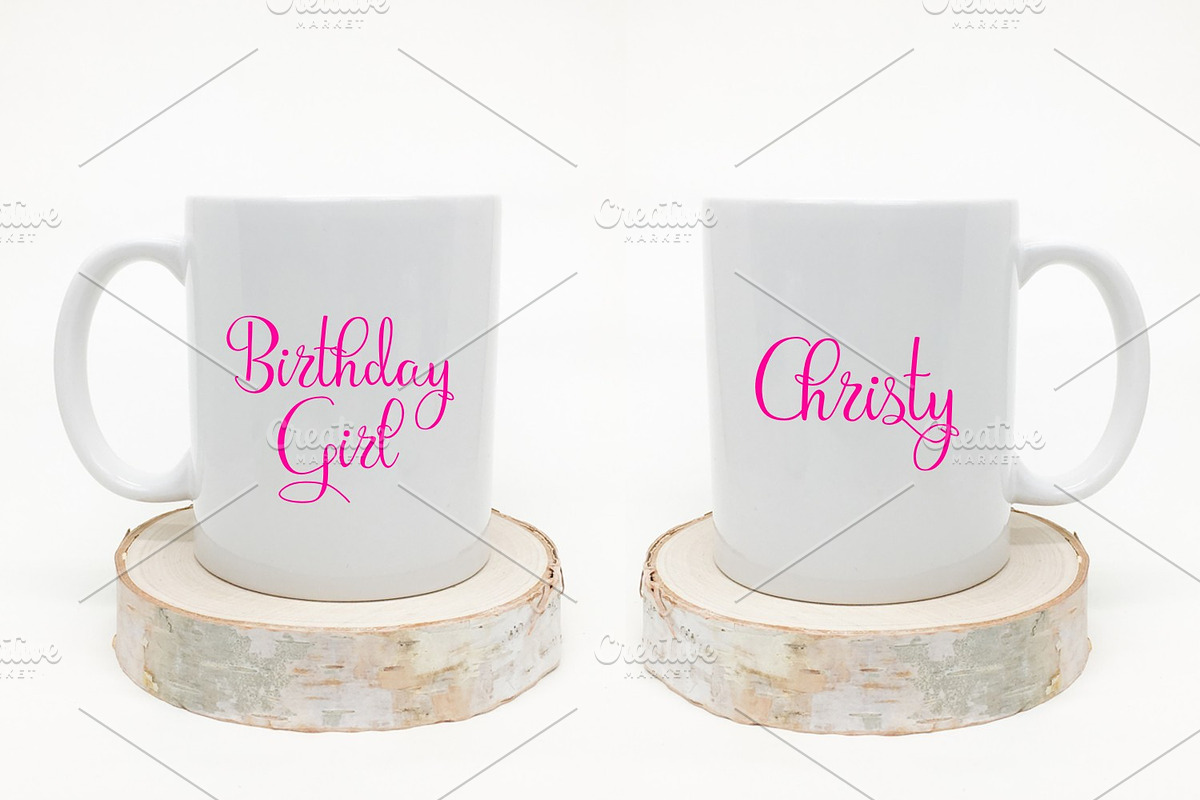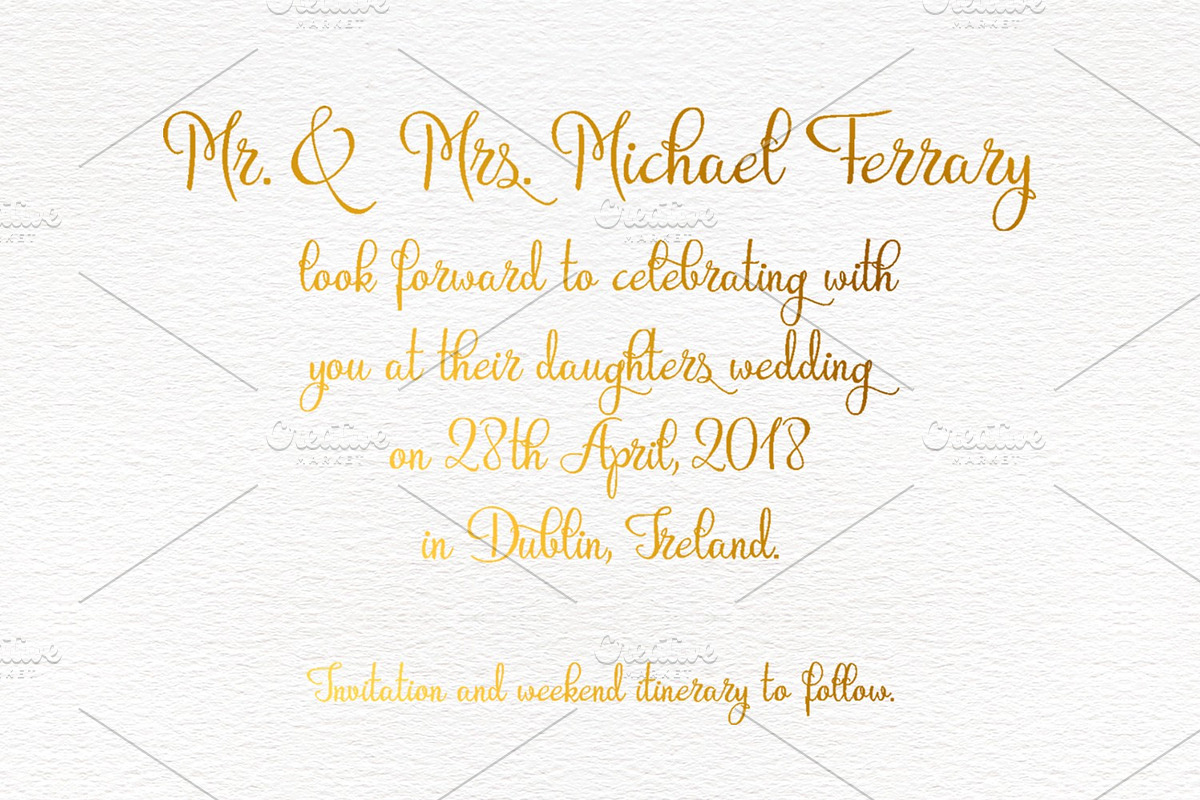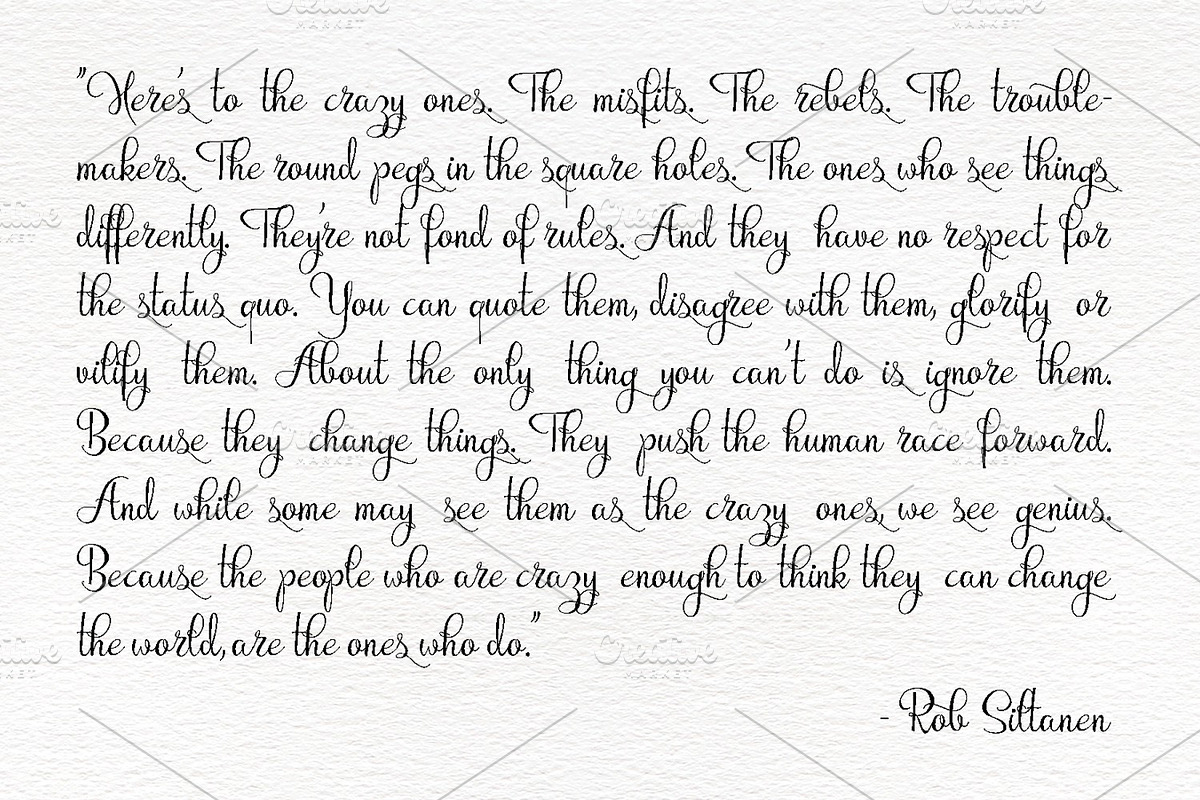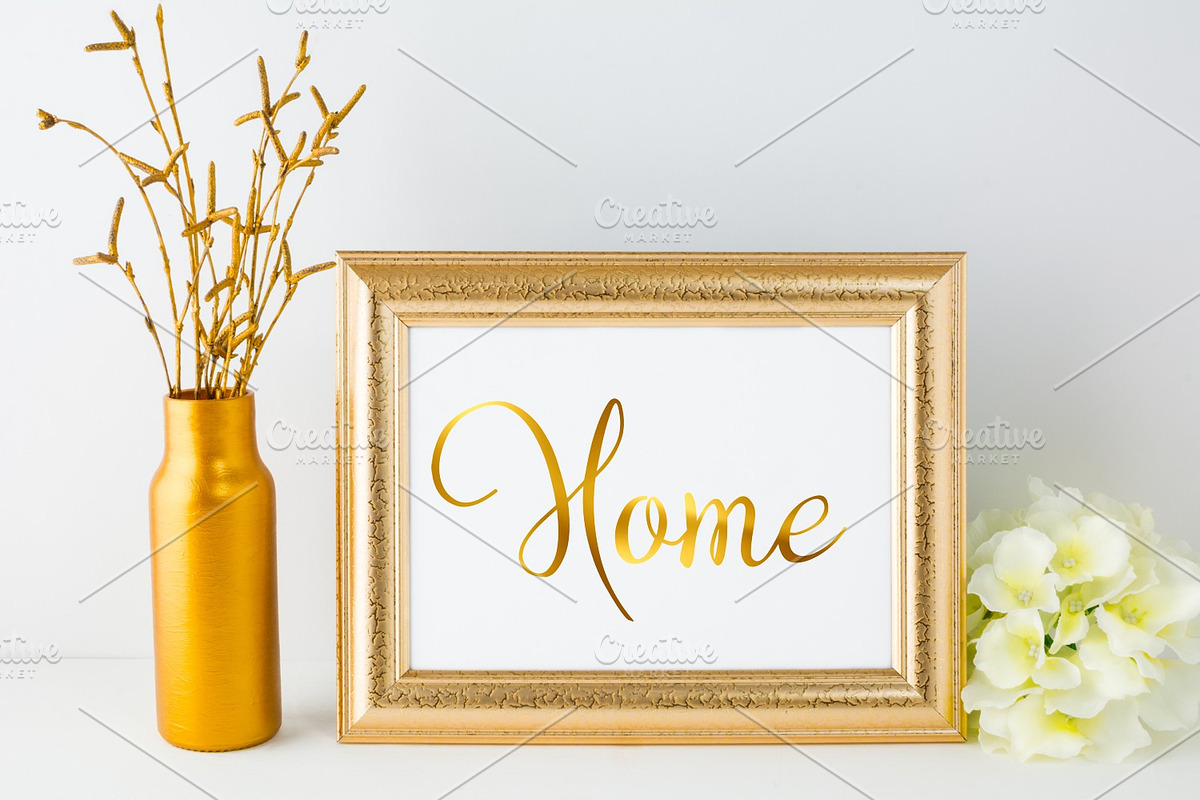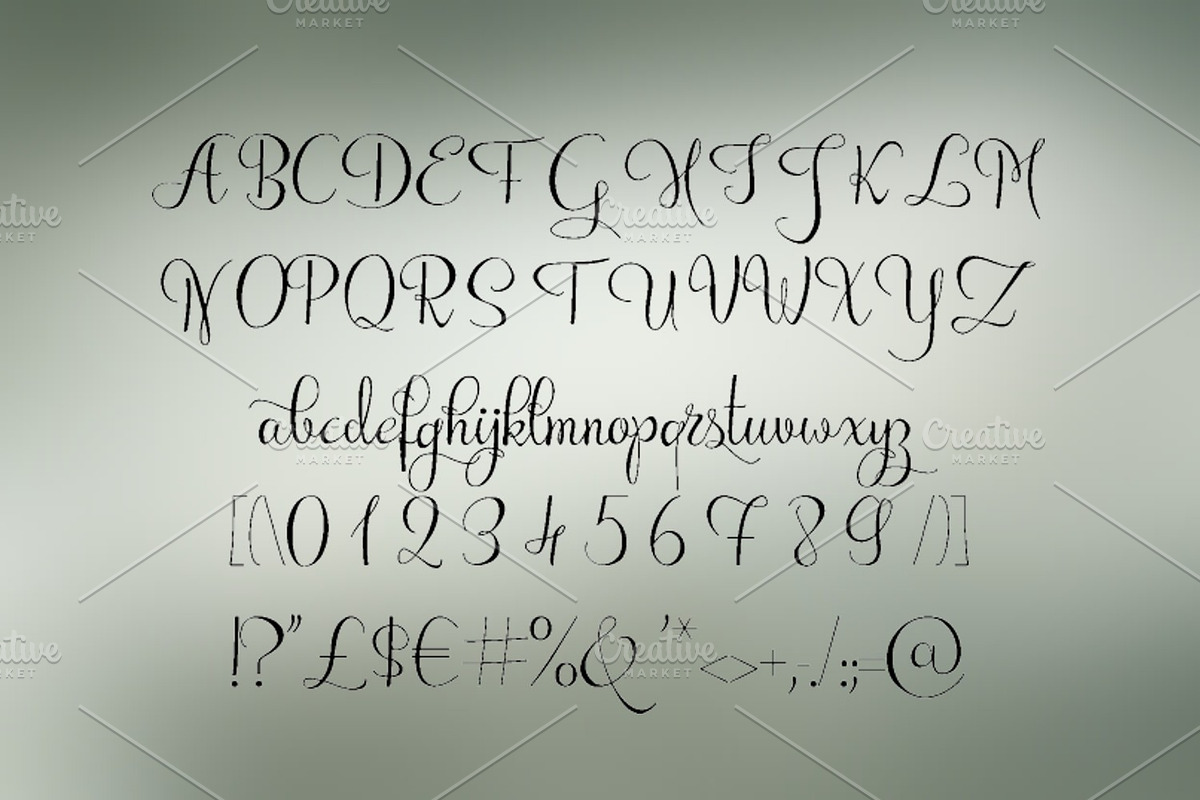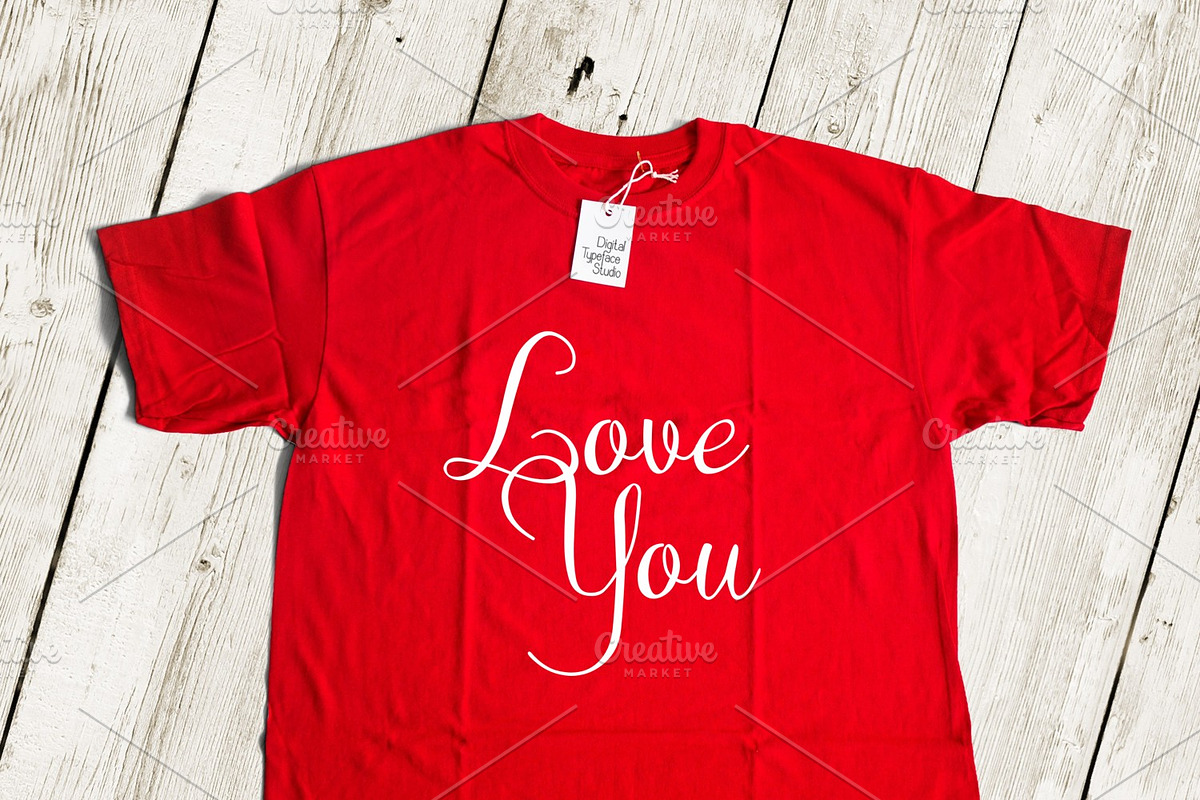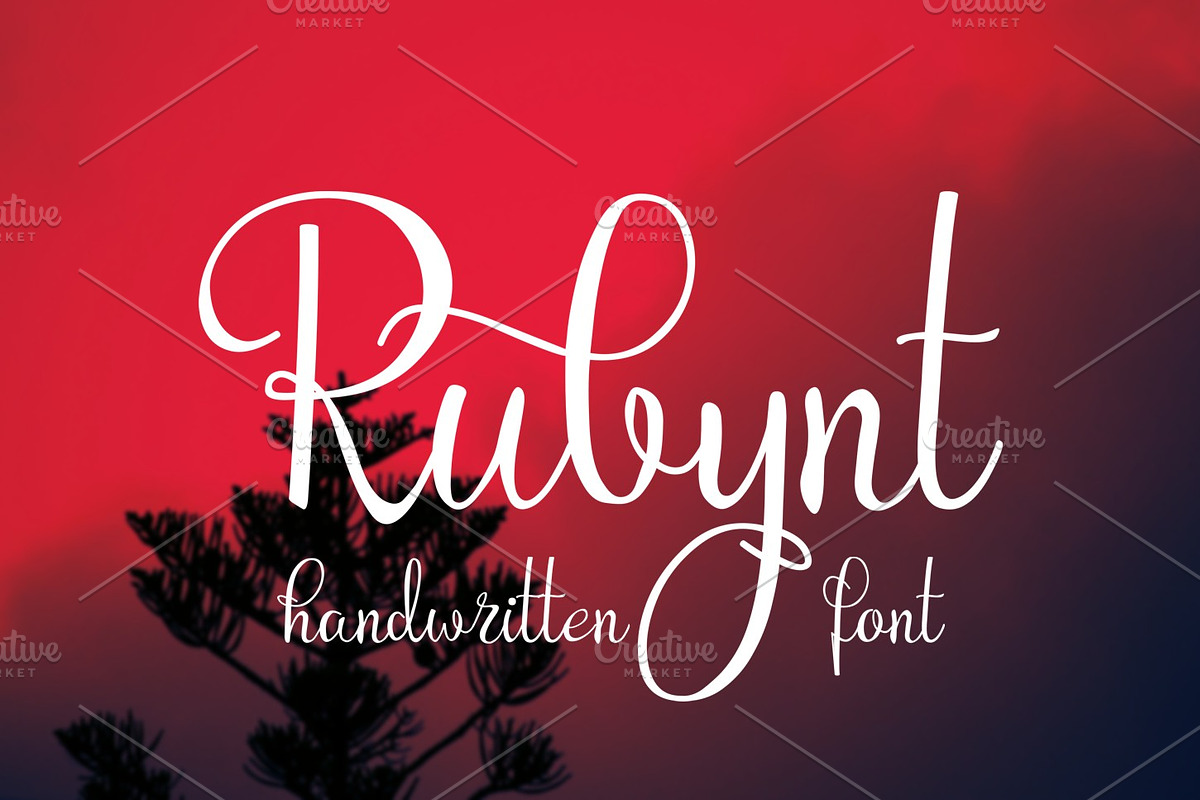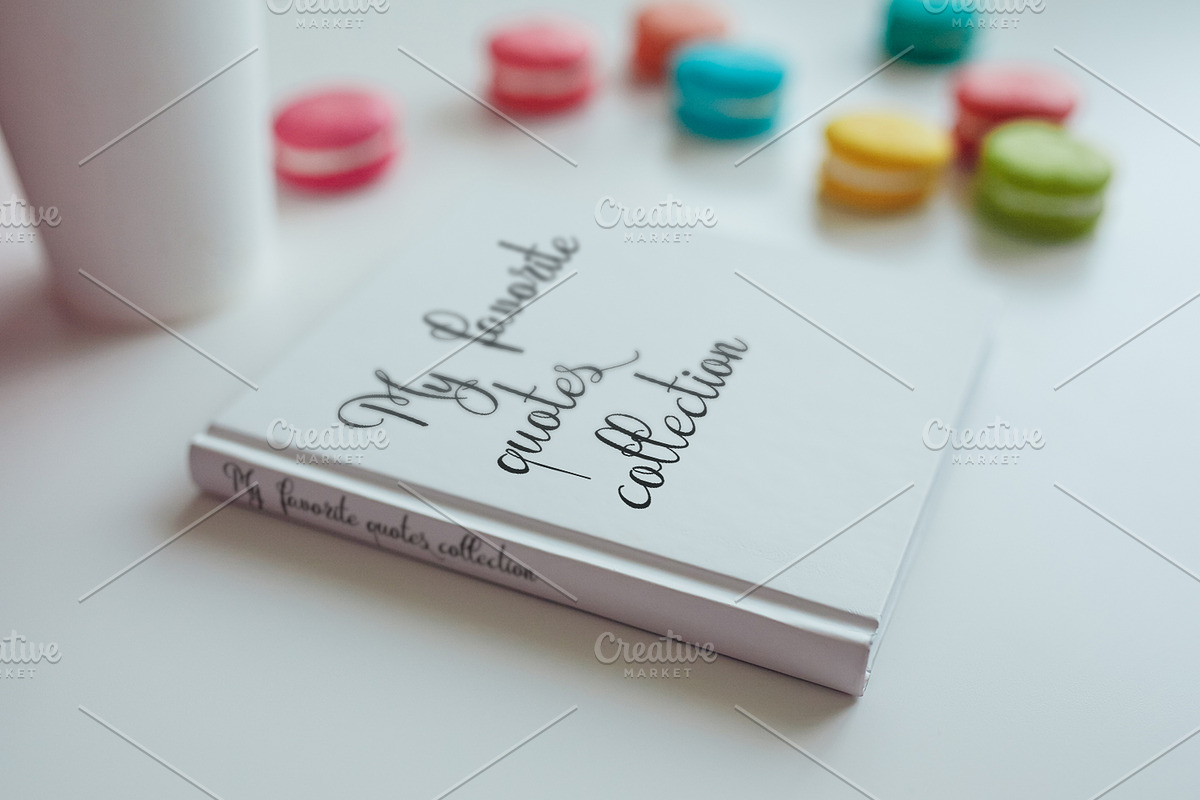
Rubynt
Introducing Rubynt handwritten typeface. Great for cards and any creative projects! Download and use across a huge range of programs such as Adobe programs, Corel programs, Cricut and many others!
Rubynt by Digital Typeface Studio fits naturally into Branding, posters, packaging, typography.